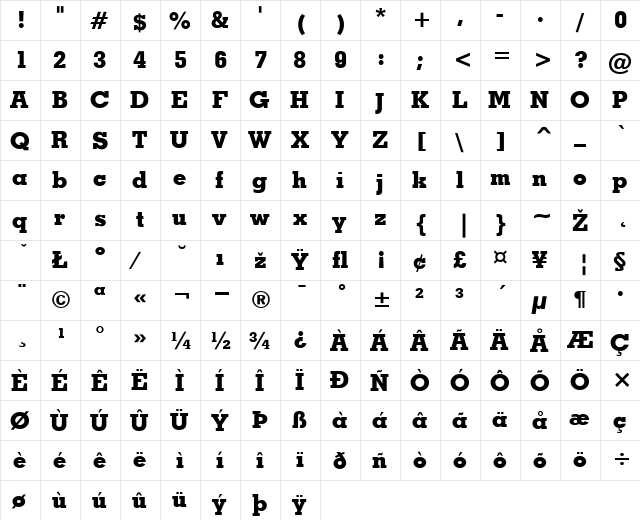
GeoSlab703-Extra Regular
Design Context for GeoSlab703-Extra Typeface
GeoSlab703-Extra features prominent, blocky serifs that give it a confident, grounded presence — equally at home in editorial settings and bold branding work.
Suited to magazines, political campaign materials, bold packaging, and any setting where authority matters.
Pro Tip: Use GeoSlab703-Extra for headlines and subheadings where its slab serifs can make an impression. It also holds up well in mid-size body copy thanks to its sturdy construction.